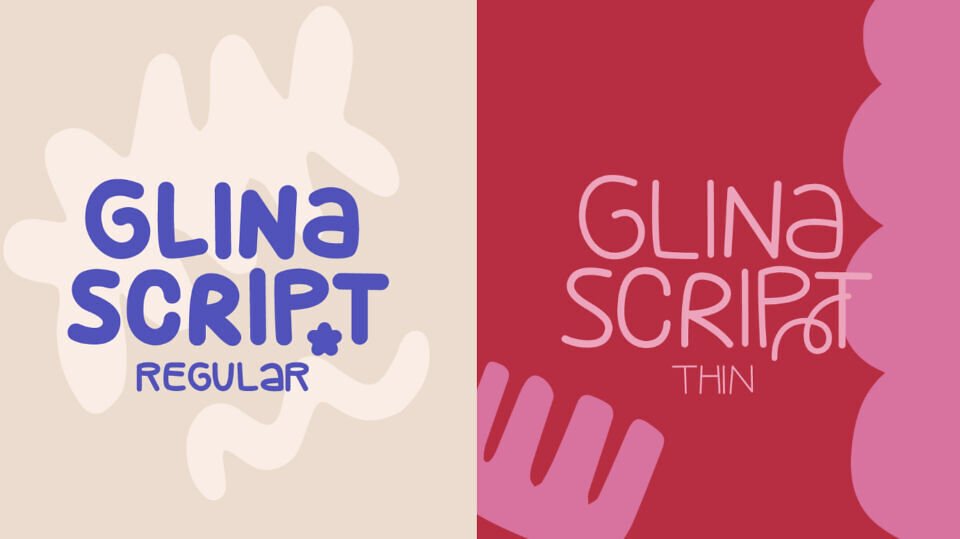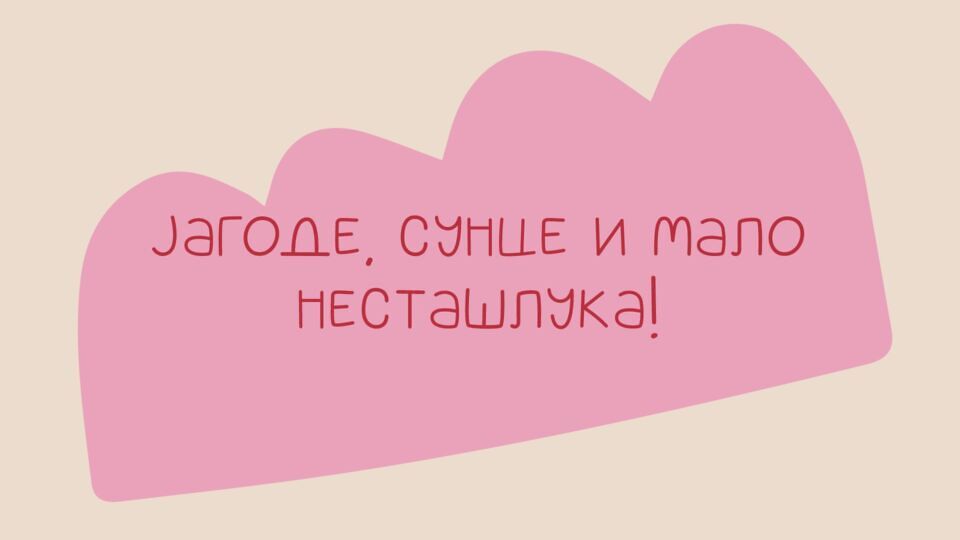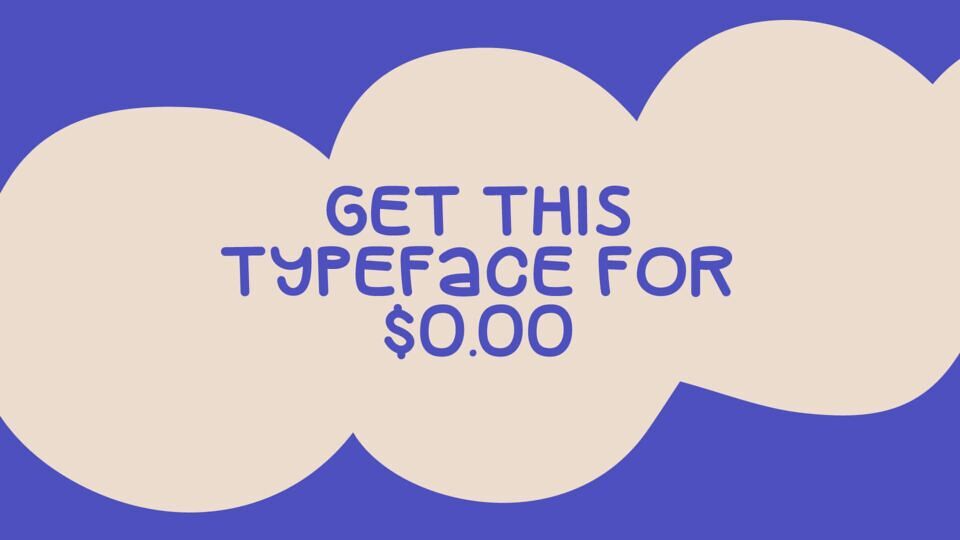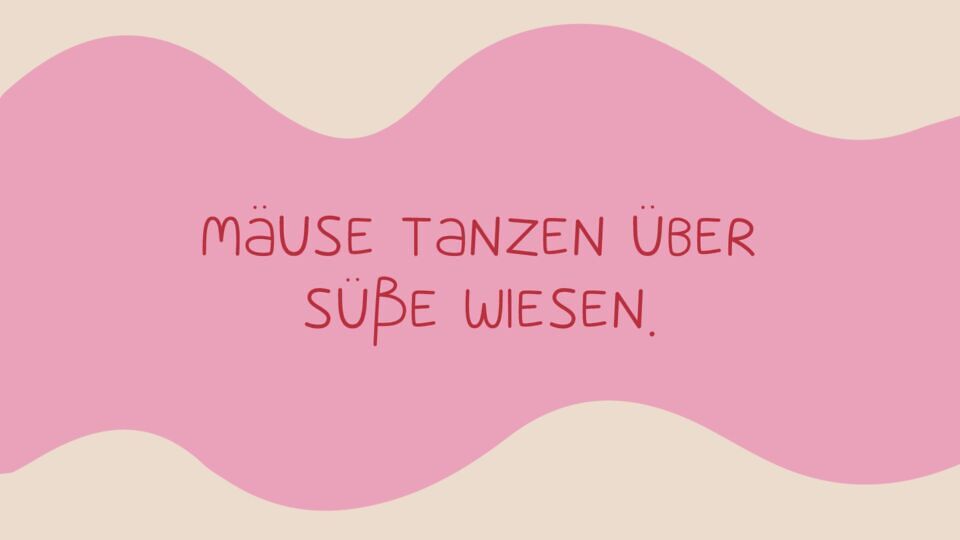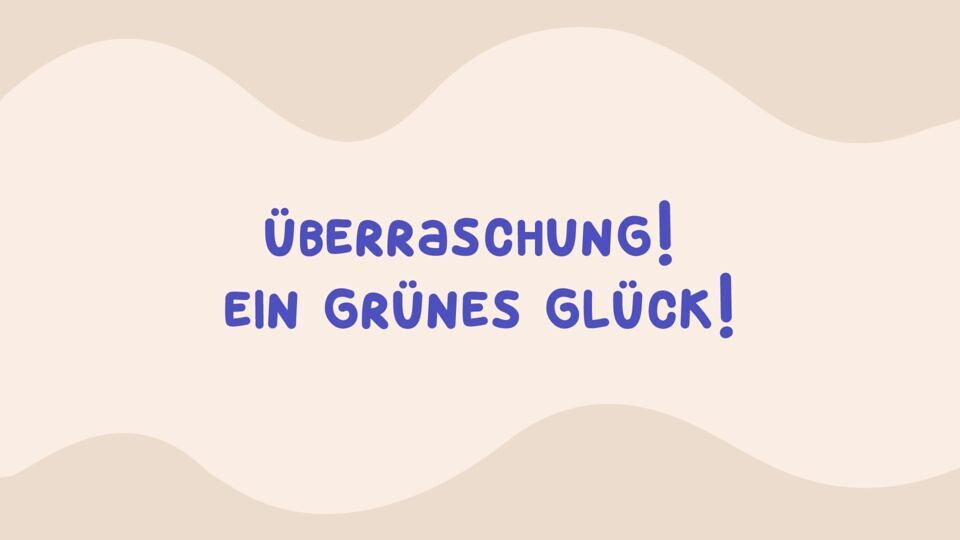
Glina Script, a handwritten typeface, radiates warmth and expressiveness with its soft, pliable character. Featuring smooth, organic strokes, it brings a natural, friendly vibe, perfect for comics, speech bubbles, and playful designs.
Supporting Latin and Cyrillic scripts, it offers two versatile styles for creative flexibility. Ideal for dialogue, expressive lettering, or eye-catching titles, Glina Script ensures readability while adding charm and personality.
This font captures the spontaneity of handwriting with a fun, approachable twist, making it a top choice for comic books, illustrated stories, and casual branding projects.